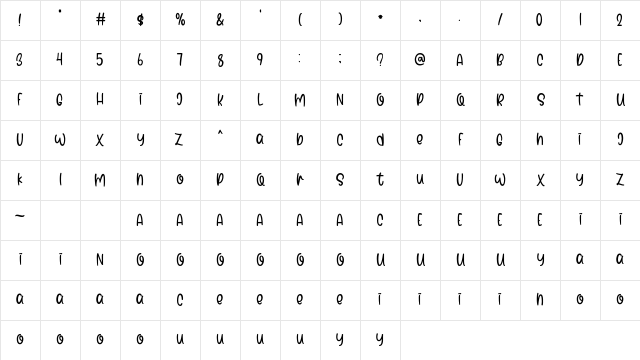
Marshmallow Regular Free Font
Marshmallow Regular
Foundry: Fillo Graphic
Designer: Nopianti
Design Context for Marshmallow
Marshmallow is a composed and adaptable typeface that performs quietly and consistently across a wide range of design contexts.